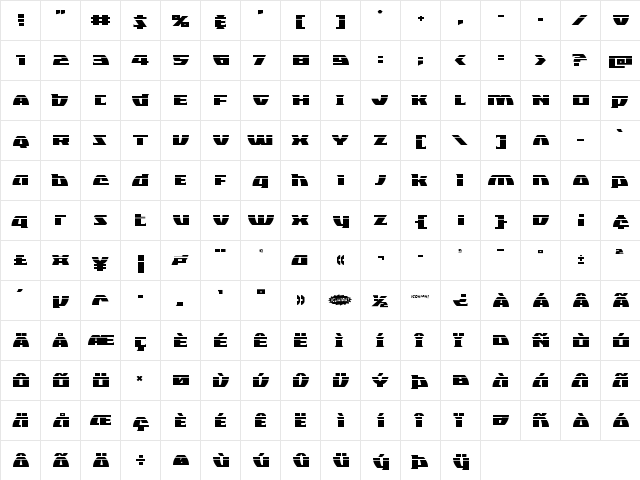
Black Bishop Laser Regular
Design Context for Black Bishop Laser Typeface
Black Bishop Laser is a composed and adaptable typeface that performs quietly and consistently across a wide range of design contexts.